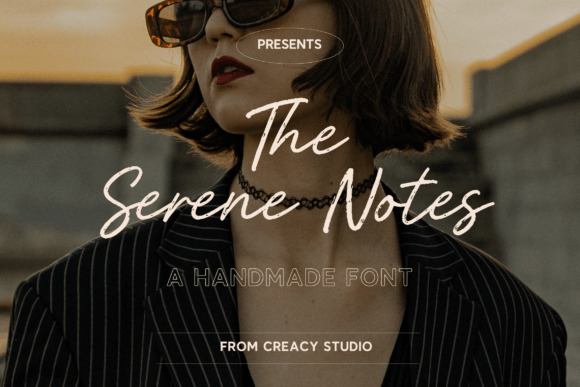
Introducing The Serene Notes Font Duo
In the crowded landscape of digital design, finding a typeface that truly conveys a specific emotion can be a challenge. We often search for fonts that do more than just display text; we look for tools that tell a story. The Serene Notes is one such tool. It is a meticulously crafted font duo designed to bring a sense of calm, authenticity, and gentle sophistication to any project. This pairing combines a fluid, handmade script with a clean, modern display sans-serif, creating a versatile asset for creators who value both beauty and clarity.
The visual character of The Serene Notes is defined by its balance. The script component feels organic and personal, as if written by a careful hand on high-quality paper. It avoids the overly casual or chaotic look of some handwritten fonts, opting instead for a poised and legible flow. The accompanying sans-serif provides a stable, contemporary foundation. Its clear geometry and open forms ensure readability at various sizes, making it a perfect partner to the expressive script. Together, they create a visual harmony that is both warm and professional.
Crafting an Authentic Brand Identity
When building a brand, every element contributes to the overall perception. The Serene Notes offers a unique advantage for businesses aiming to project mindfulness, delicate luxury, or approachable elegance. Consider a boutique skincare line, a wellness blog, or a handmade jewelry studio. Using the script font for the primary logo can instantly communicate the brand's artisanal quality and personal touch. The sans-serif font then takes over for product descriptions, website navigation, and social media captions, ensuring information is delivered with crisp clarity.
This font duo excels in creating a consistent and recognizable brand identity across multiple touchpoints. The personality embedded in The Serene Notes helps build an emotional connection with the audience. It suggests that the brand values simplicity, authenticity, and quality—without needing to say a word. For entrepreneurs and small business owners, this can be a powerful way to stand out, moving away from generic templates and toward a visual language that feels genuinely their own.
Practical Applications Across Media
The true test of any premium font is its performance in real-world scenarios. The Serene Notes is designed as a versatile design asset, suitable for a wide range of applications. In editorial design, such as magazine layouts or book covers, the script can highlight featured quotes or chapter titles, while the sans-serif handles body text with ease. For packaging design, the duo can elevate the unboxing experience, with the script adding a handwritten, personal note feel to labels or thank-you cards.
Digital spaces benefit greatly from its warmth. In web design, the sans-serif ensures excellent on-screen readability for paragraphs and UI elements, while the script can be used sparingly for impactful headers or call-to-action phrases. Social media graphics become more engaging when the script is used for inspirational quotes or promotional announcements, breaking the monotony of standard system fonts. It's also an excellent choice for logo design, particularly for brands in the lifestyle, beauty, or creative sectors.
- Print Projects: Wedding invitations, greeting cards, and stationery sets gain a personal, elegant touch.
- Digital Content: Blog post graphics, email newsletter headers, and presentation slides look polished and inviting.
- Product Design: Labels for artisanal goods, book titles, and product tags benefit from its distinctive style.
Working with The Serene Notes
Choosing the right font is just the first step. To get the most from The Serene Notes, consider a few practical aspects. First, evaluate the project's core message. Does it call for a gentle, personal voice? The script is ideal. Does it require clear, modern information delivery? The sans-serif shines there. The magic happens in the pairing—using both creates a dynamic visual hierarchy that guides the viewer's eye naturally.
Testing is crucial. Always preview the font in your specific context. Check the readability of the sans-serif at small sizes, especially for body text in web design or lengthy print documents. Ensure the script's elegant swashes don't interfere with legibility in tight spaces. Review the included styles and glyphs; many premium fonts like this include alternate characters, ligatures, and stylistic sets that can add further customization and flair to your work.